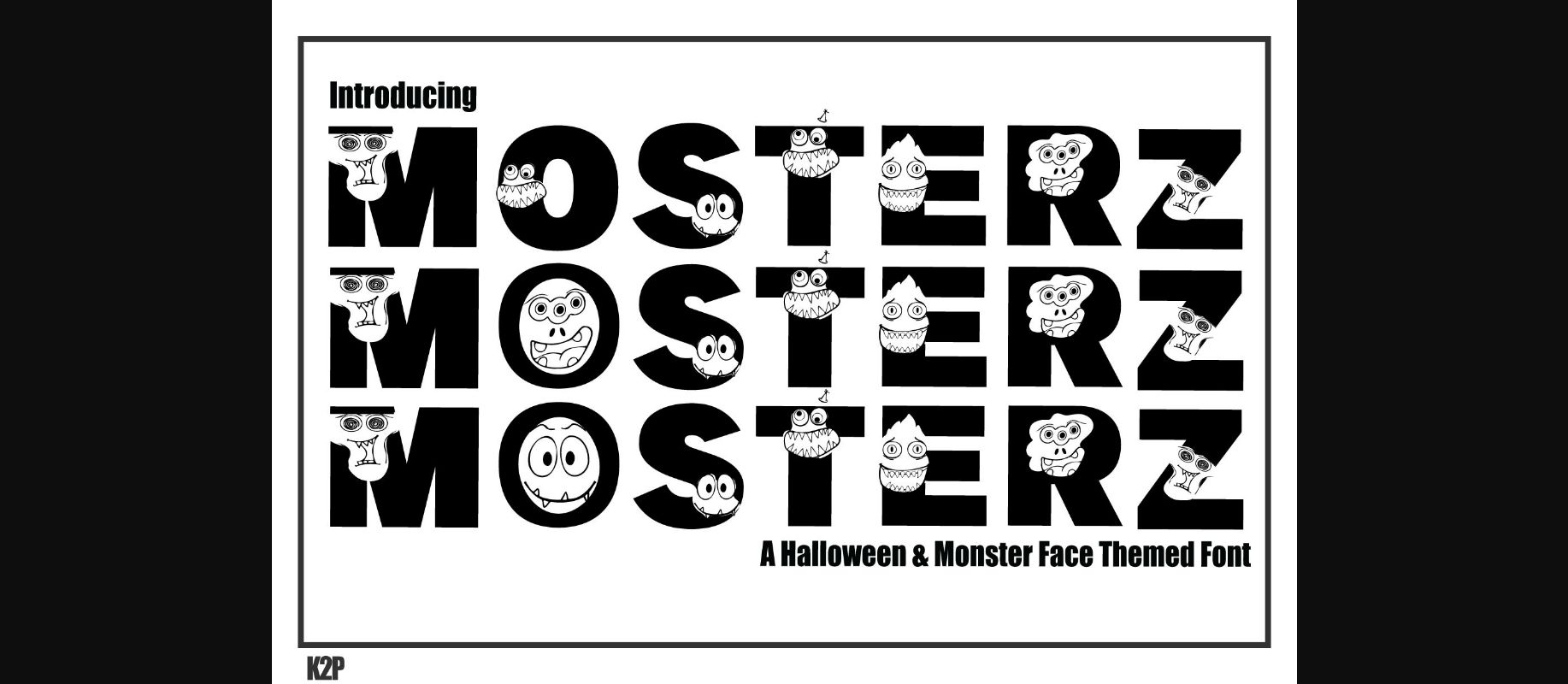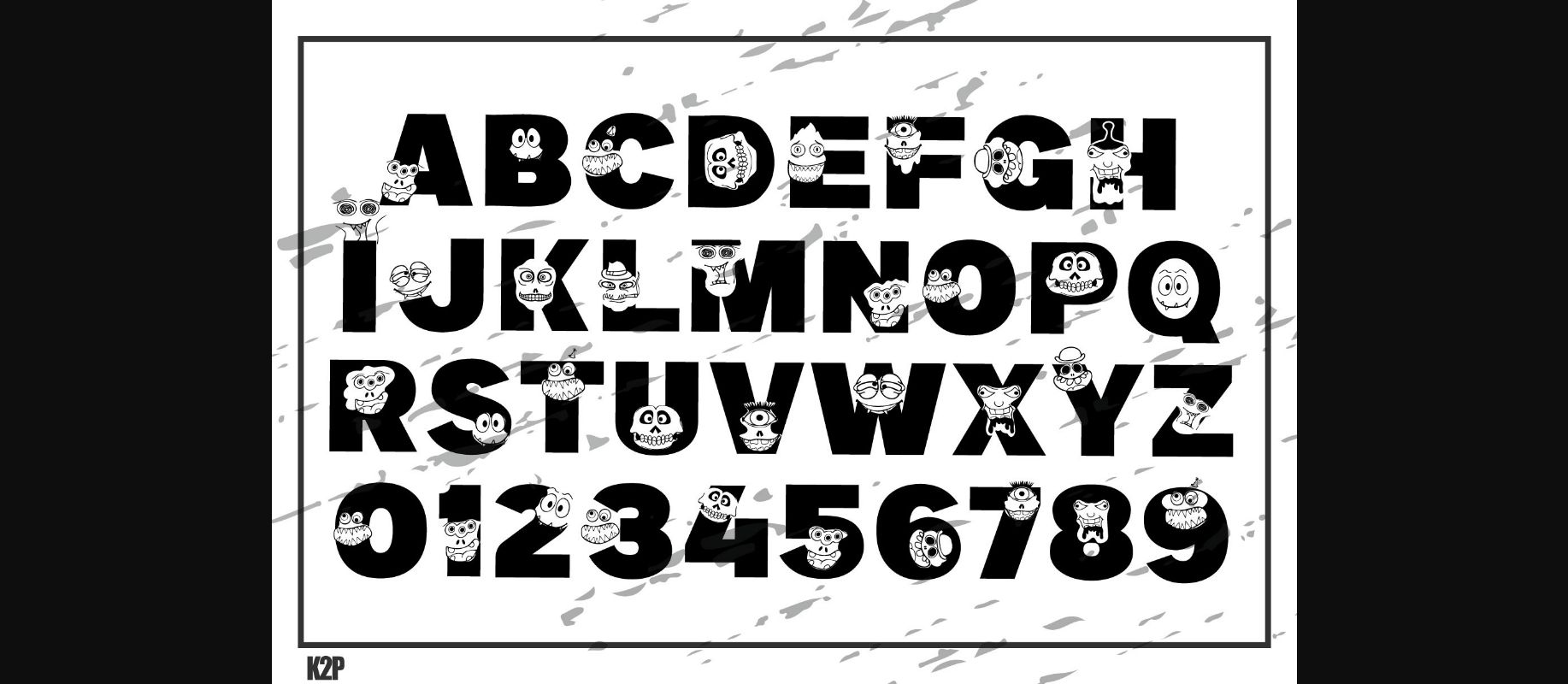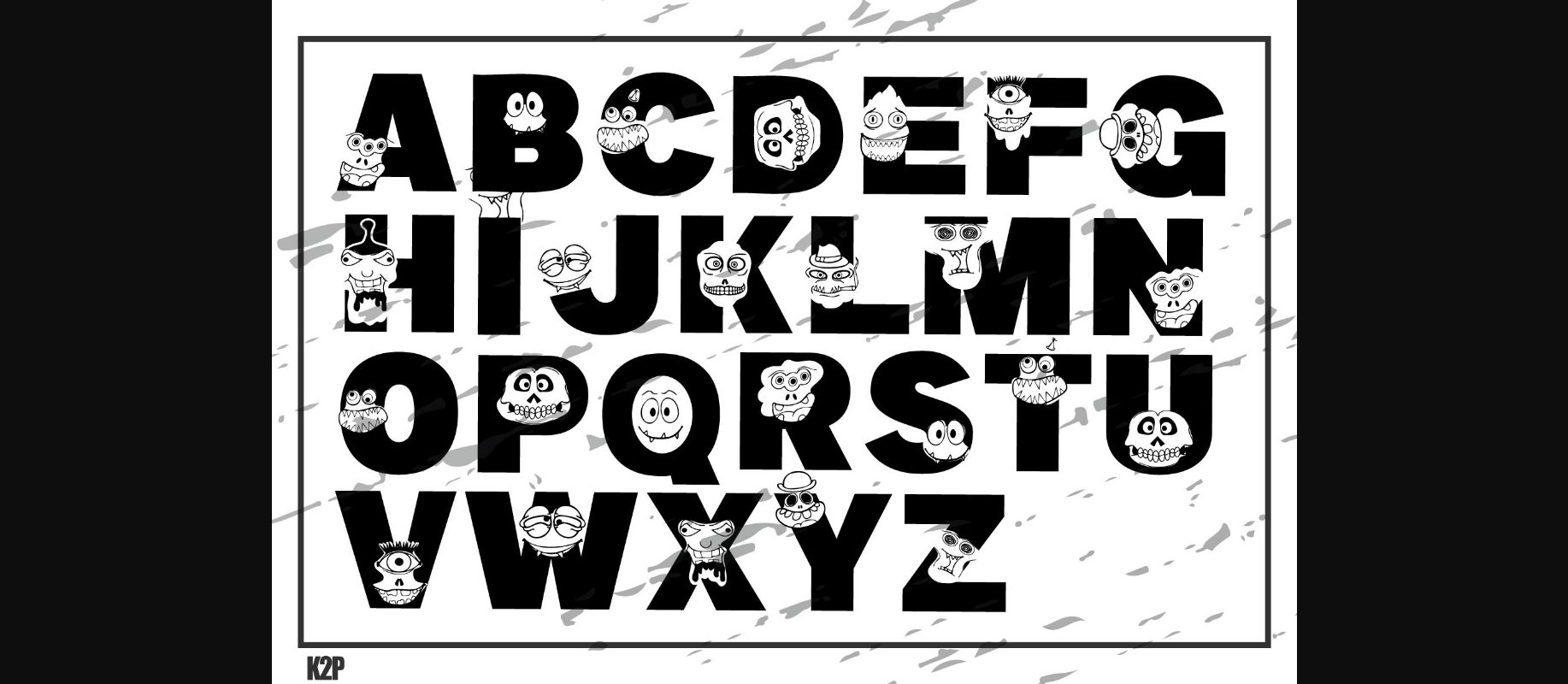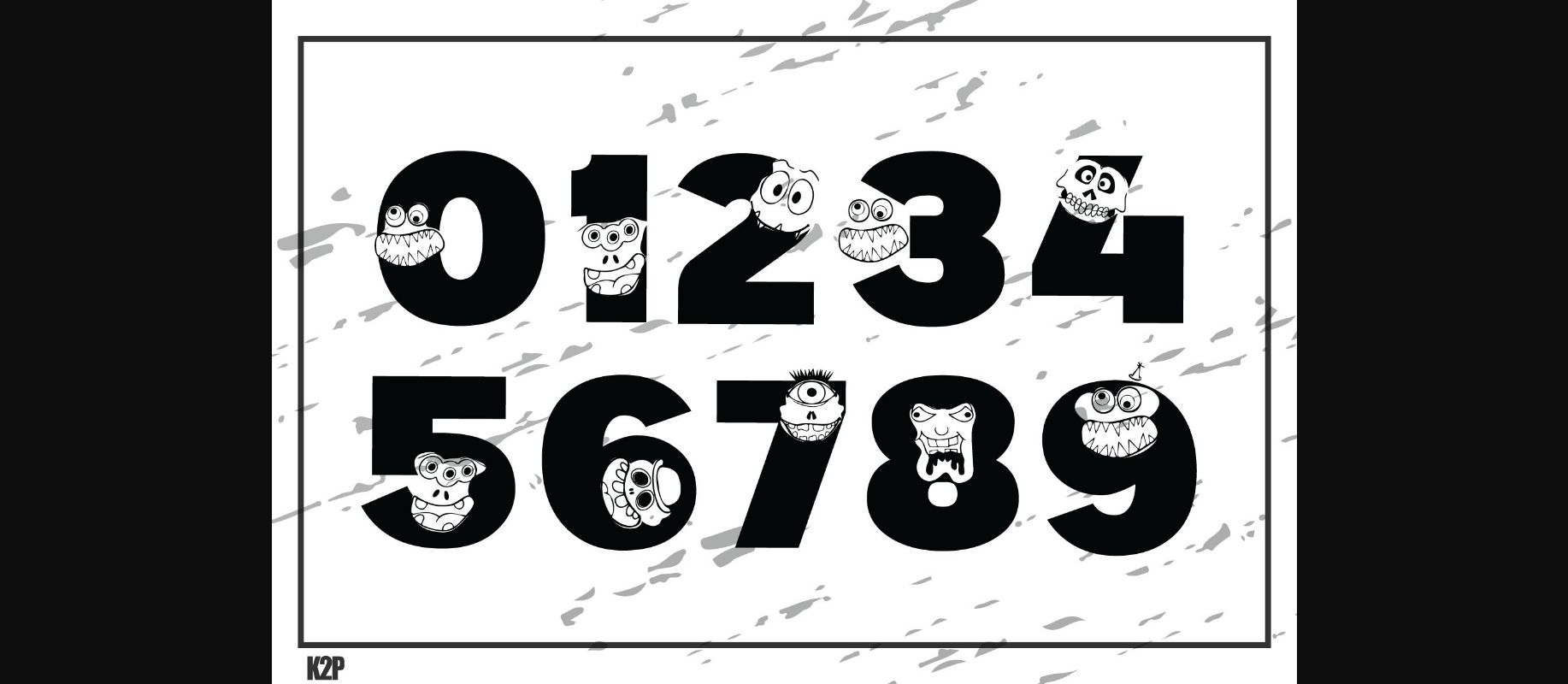
About MonsterZ Font
MonsterZ is a thick-lettered and spooky decorative font. It is perfectly suitable for any Halloween-related project or crafty idea! This font is PUA encoded which means you can access all glyphs and swashes with ease!